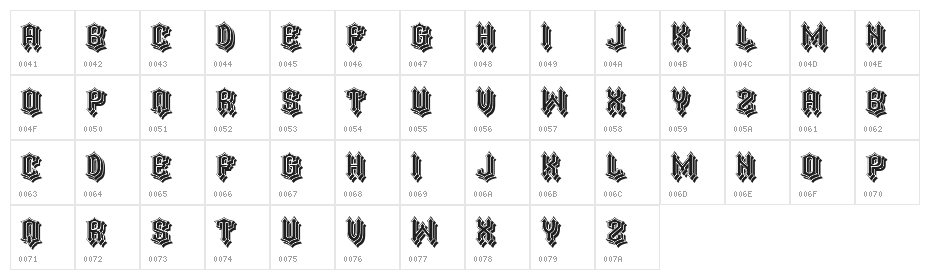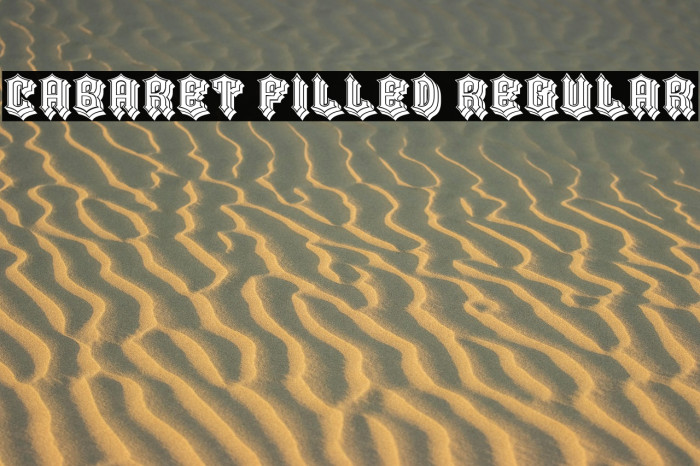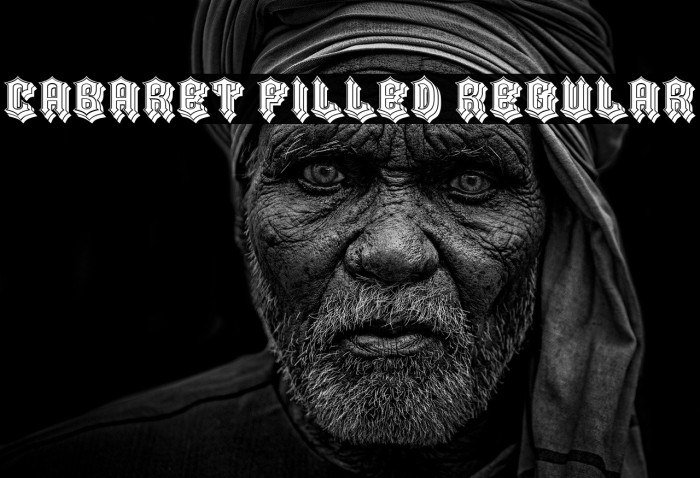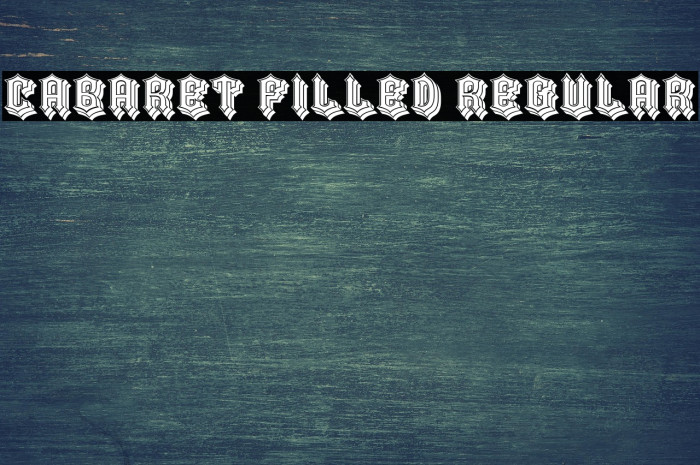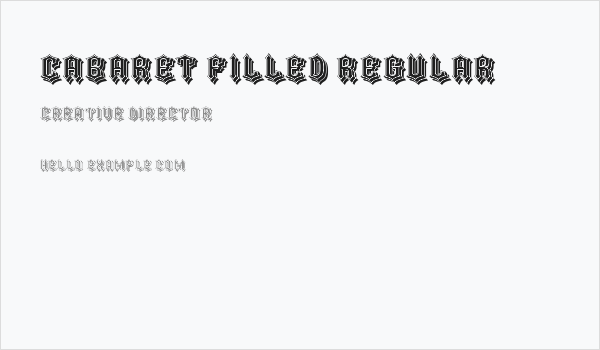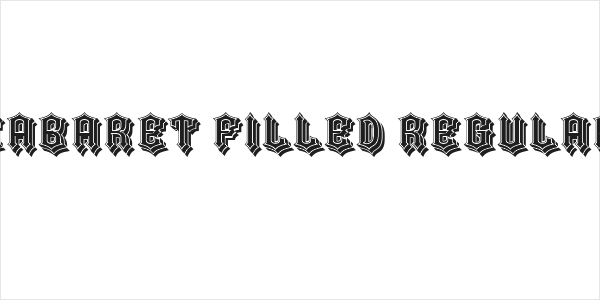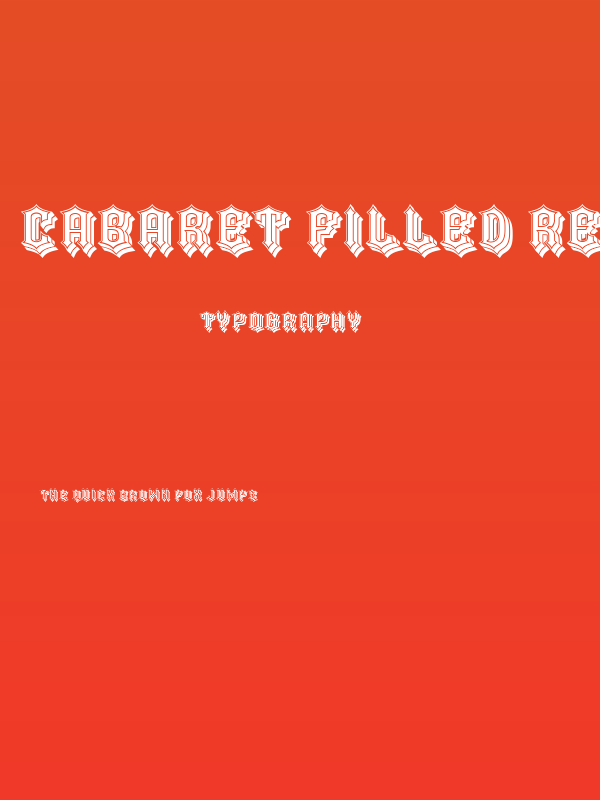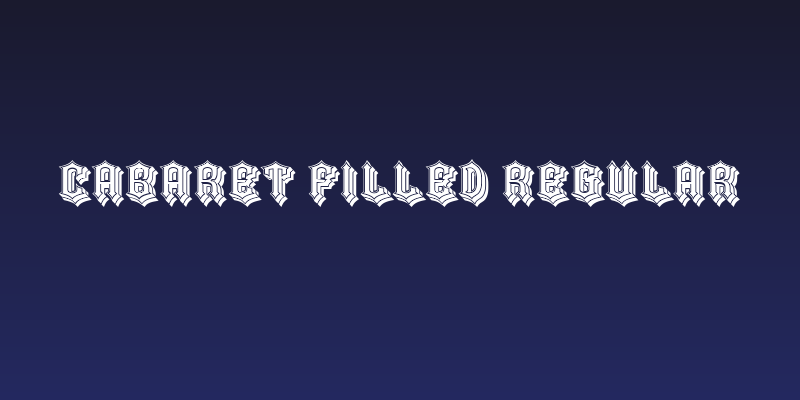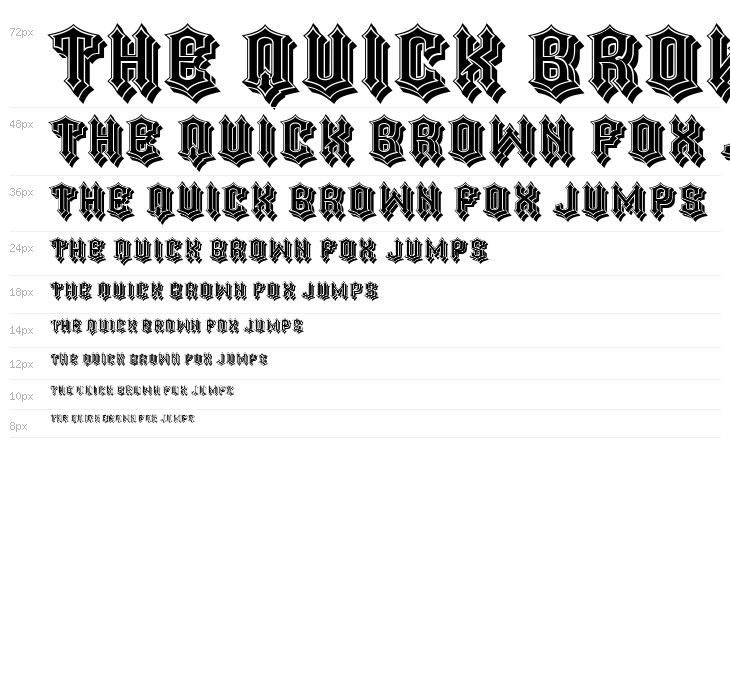
Cabaret Filled Regular Font
Cabaret Filled Regular Description
This font features a bold, decorative style with intricate detailing and a strong presence. The characters are designed with a blackletter influence, showcasing sharp angles and dramatic serifs. The filled interior adds weight and emphasis, making it ideal for eye-catching designs. The uppercase letters are particularly striking, with a gothic flair that adds a sense of grandeur and elegance. The overall appearance is both vintage and theatrical, reminiscent of classic cabaret signage or old-world typography.
| Overall Style | Vintage, Decorative |
| Proposed Projects | Ideal for theatrical posters, vintage-themed branding, album covers, and event invitations. |